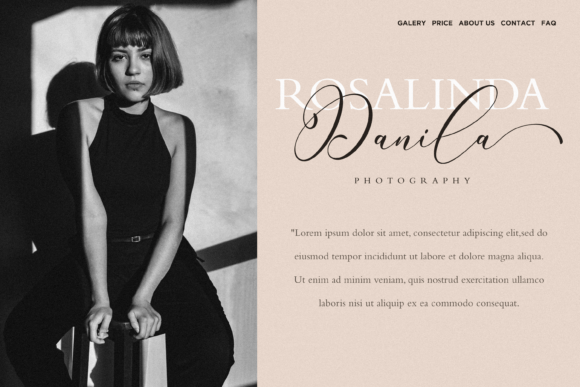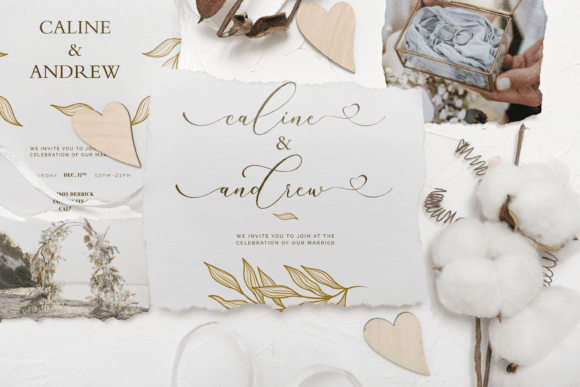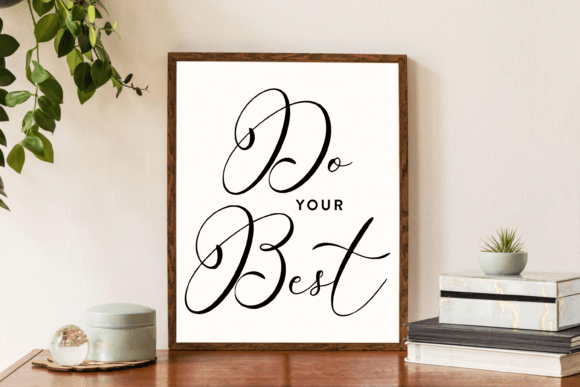
Introduction to Rintica Font
Rintica is a lovely script font with splendid ligatures, swashes, and alternates.
Rintica is perfect for product packaging, branding project, magazines, social media, weddings, or just used to express words above the background This font is PUA encoded, which means you can access all of the glyphs and swashes with ease.
Why Choose Rintica Font?